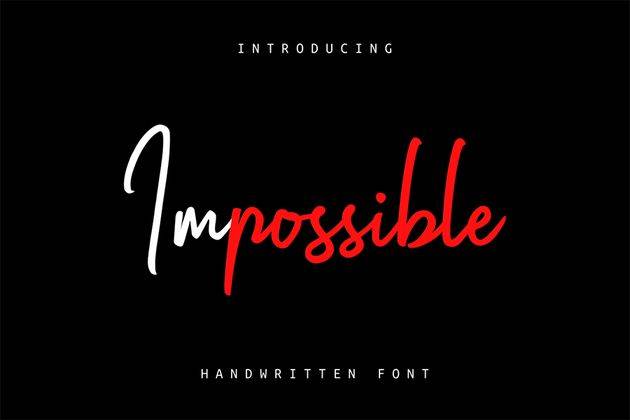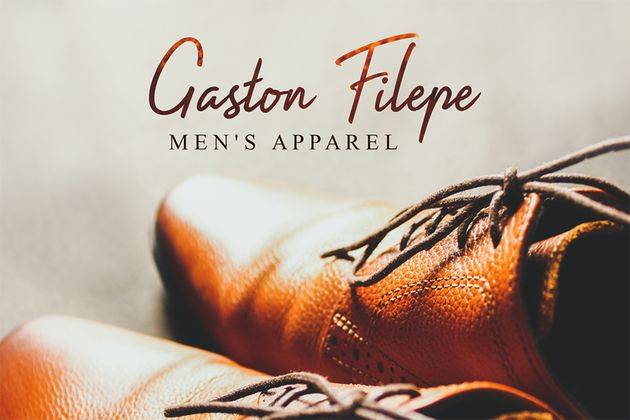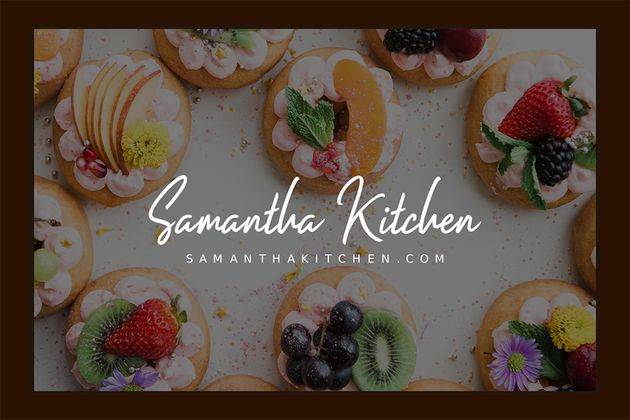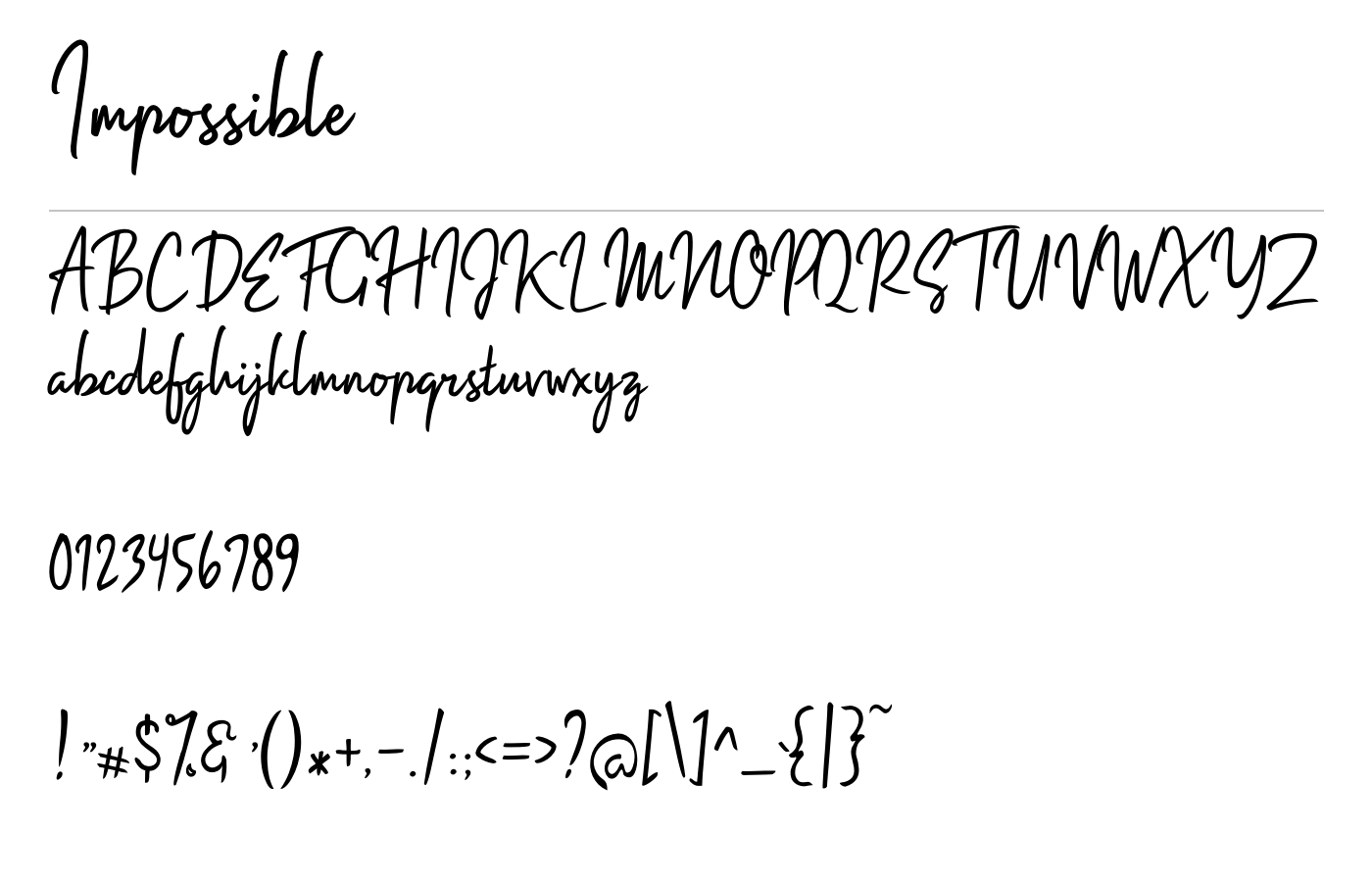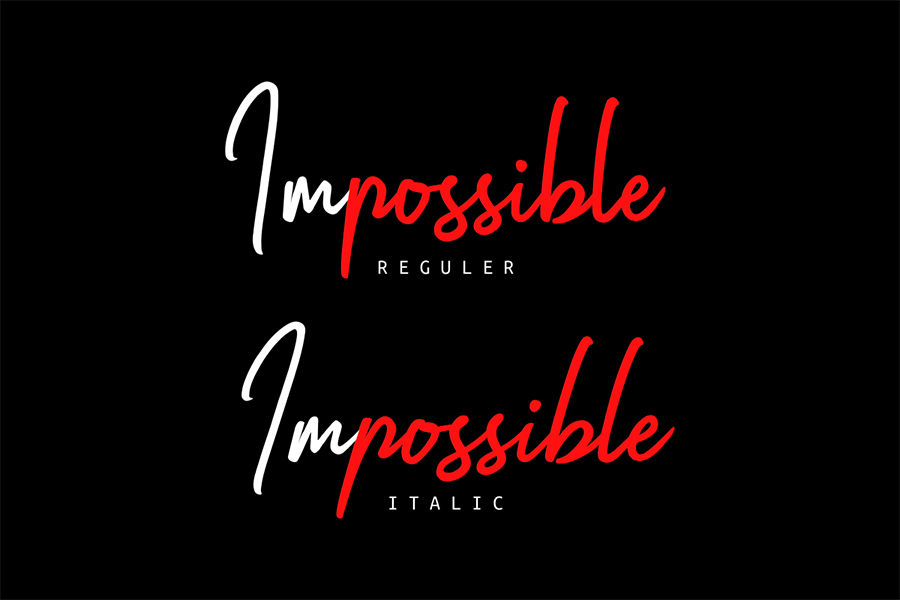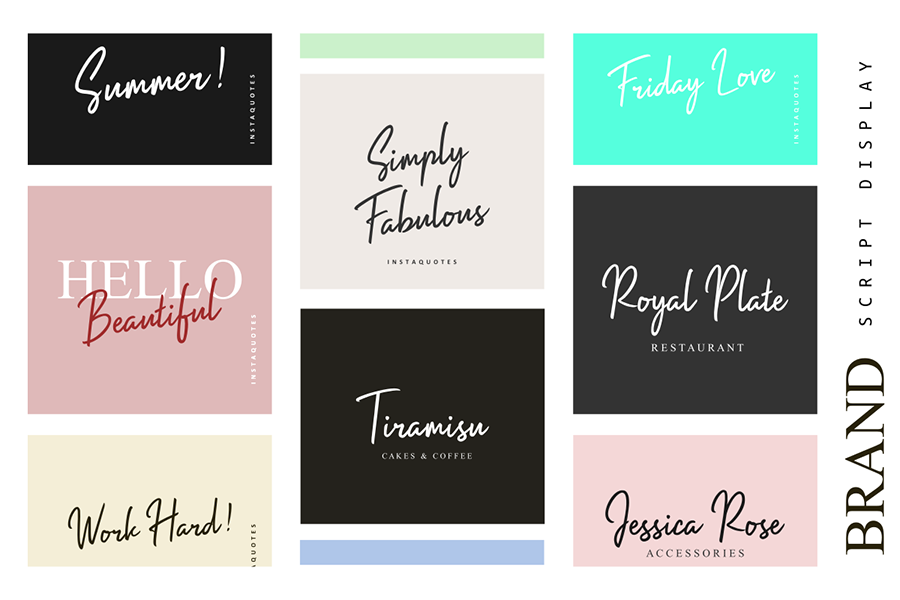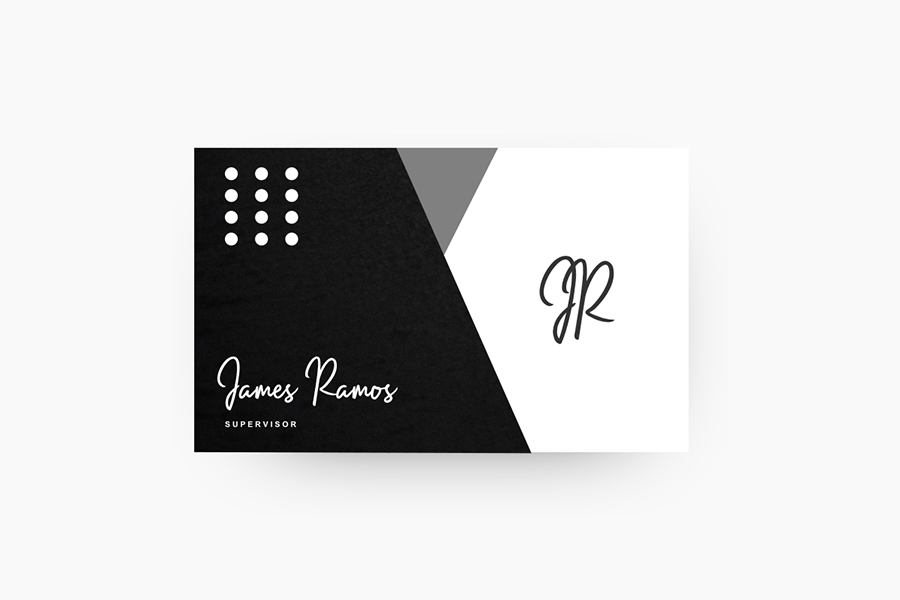
Impossible Script Font Demo is a casual, handwritten script font with a lively and flowing style that feels personal and approachable. Its slender strokes and slightly irregular forms lend a modern yet friendly vibe, making it ideal for creative branding, invitations, and informal headlines where a warm, authentic touch is desired. This font works well in designs that aim to convey friendliness and creativity without the formality of traditional scripts.
Impossible Script Font Demo
About Impossible Script Font Demo
| Font family | Impossible Script Font Demo |
| Designer | Ahsan Design |